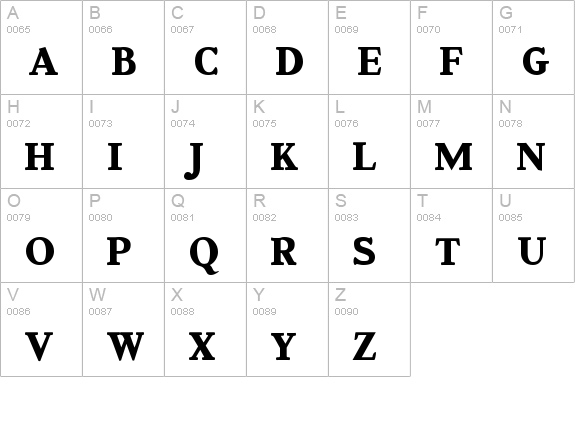
AabcedXBold Bold Font Details
AabcedXBold Bold is a strong, high-contrast variant in the AabcedXBold typeface family \xE2\x80\x94 well suited to headlines, attention-grabbing titles, and strong calls-to-action.
Introducing AabcedXBold Bold Font, a stunning typeface that effortlessly combines boldness and elegance. With its strong and impactful letterforms, this font is perfect for creating eye-catching headlines, logos, and branding materials. Designed with meticulous attention to detail, AabcedXBold Bold Font offers a unique and distinctive look that will make your designs stand out from the crowd. Its clean and crisp lines exude a sense of professionalism and sophistication, making it suitable for a wide range of projects. Not only does AabcedXBold Bold Font offer exceptional aesthetics, but it also provides a high level of readability. Each character is thoughtfully crafted to ensure legibility, even at smaller sizes. This makes it ideal for both print and digital media, ensuring that your message is conveyed clearly and effectively. But what makes AabcedXBold Bold Font truly exceptional is that it is available for free. Yes, you read that right! This incredible font can be freely downloaded at FontsMarket.com. Now you can elevate your designs without breaking the bank. Whether you're a seasoned designer or someone looking to add a touch of elegance to their personal projects, AabcedXBold Bold Font is the perfect choice. Its versatility, readability, and striking appearance make it a valuable addition to any font collection. So why wait? Head over to FontsMarket.com and download AabcedXBold Bold Font today. Unleash your creativity and elevate your designs with this stylish and freely available font.